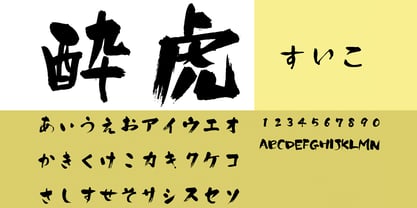
Suiko
by MAAR-sha
This font is based on the book "Design Calligraphy Series 5: Uten" authored by Ayumi Takase and published by Mahl Co., Ltd., and was digitized into a typeface by Musashi System Co., Ltd.
Featuring the warmth of handwritten characters, this typeface is versatile and suitable for various applications such as posters, menus, and doujinshi covers.